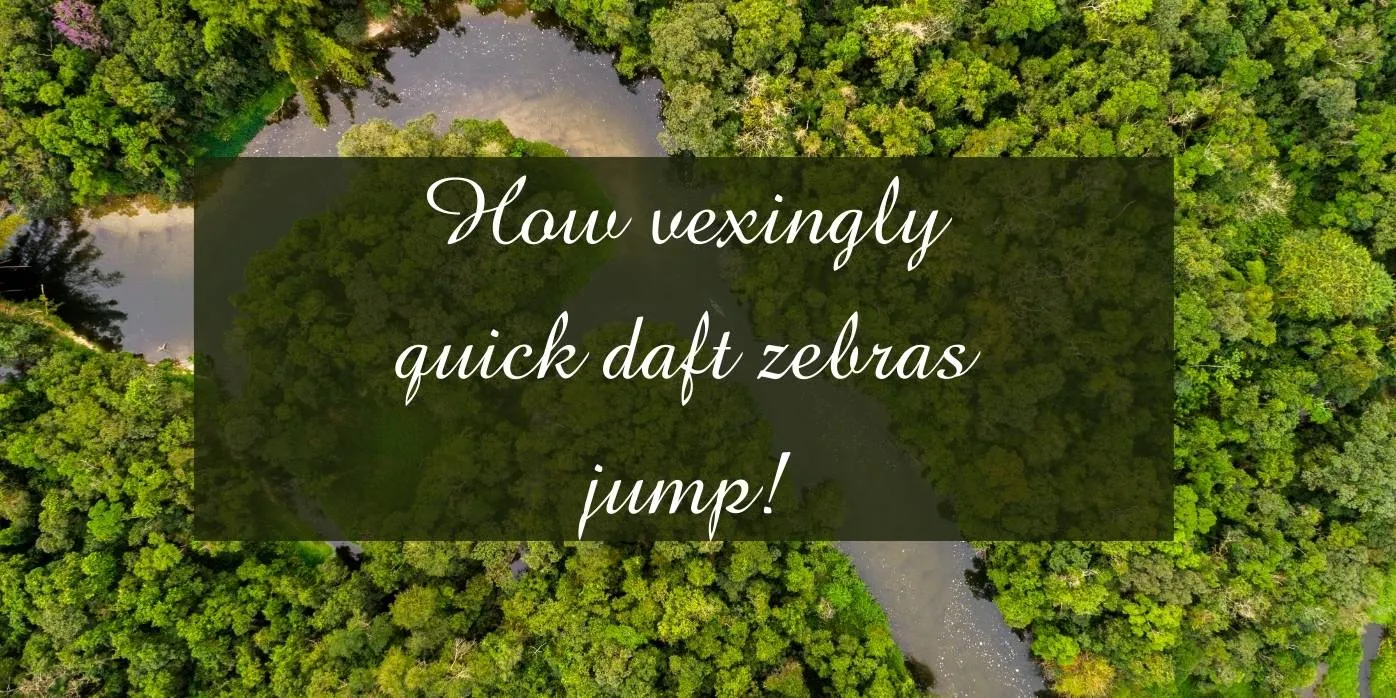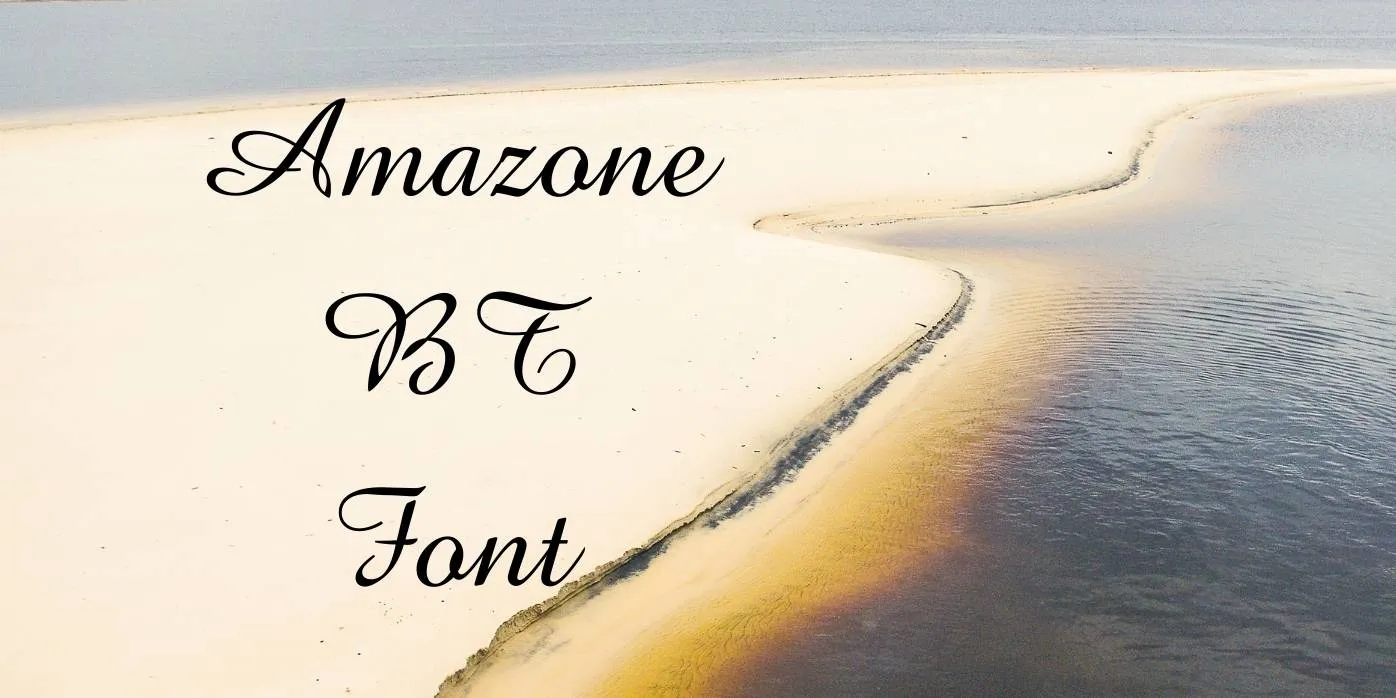
Amazone BT Font
Amazone BT Font is developed and published by Bitstream Inc. This typeface belongs to the Handwritten typeface. This cute Font is a humanist Hand-written font family. It comes in six weights with corresponding italics.
This typeface is also a great choice for web designs. This stunning font looks great on screens. Its round corners and thin strokes give a modern look to any design. This typeface looks great on digital media.